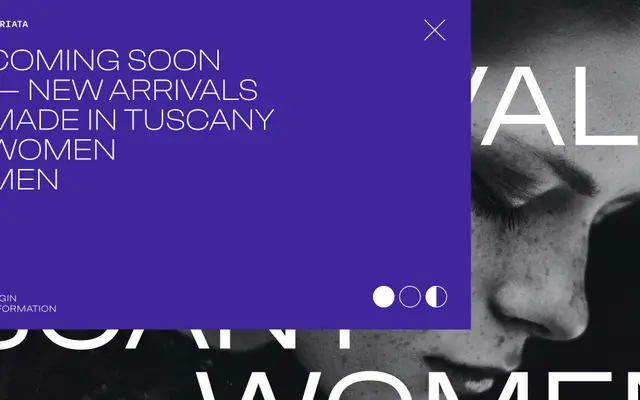
Neue Faktum Extended
Studio Rene Bieder · Rene Bieder
An extended-width grotesque with eight weights, matching italics and a suite of OpenType alternates for letterform flexibility.
Running from Thin to ExtraBold with corresponding italics, this extended-width grotesque offers 16 styles suited to branding, editorial and display work. OpenType features include alternate single-storey and double-storey forms for a, g and y, case-sensitive forms, tabular and proportional figures, and fractions. The wider proportions give it a spacious, open quality at display sizes.
An extended-width grotesque sans with geometric influences, offering a wide range of weights with matching italics and multiple OpenType alternates for single-storey and double-storey letterforms.